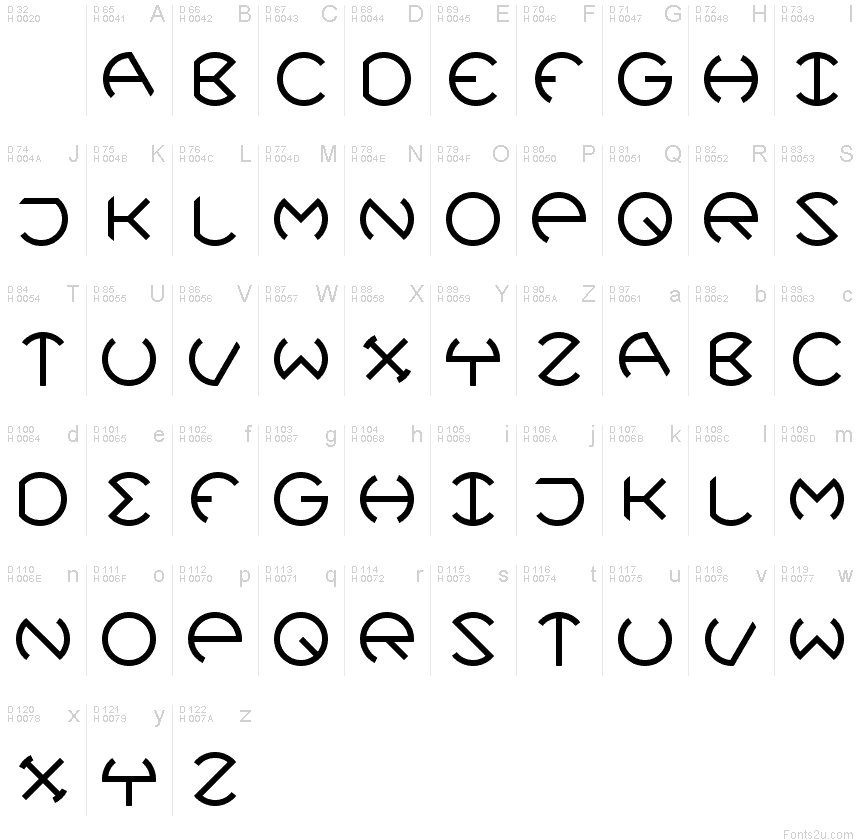
Joker by Stephen Deken is a free geometric display font built from circles, sharp diagonals, and broad, even strokes. Its letters resemble a set of custom symbols, with open curves and wedge-like cuts recurring across the forms. The result is sleek and distinctly futuristic.
As a ready-made technological emblem, it can shape branding for game studios and experimental music releases. The angular construction also suits event posters and science-fiction publishing, where the lettering can become part of a circuit-like graphic system rather than a neutral caption, and gives product packaging a recognizable identity rooted in precise geometric forms.
Joker